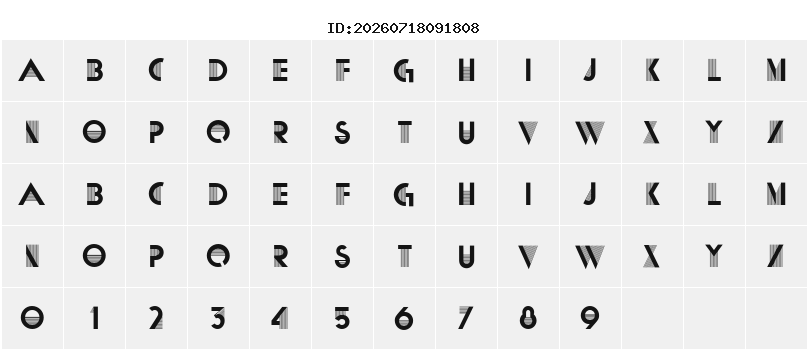
CgMatra Preview
About CgMatra.ttf
CgMatra.ttf is a modern, elegant sans-serif font designed for ultimate readability and visual harmony. Perfect for branding, headlines, web design, and print materials.